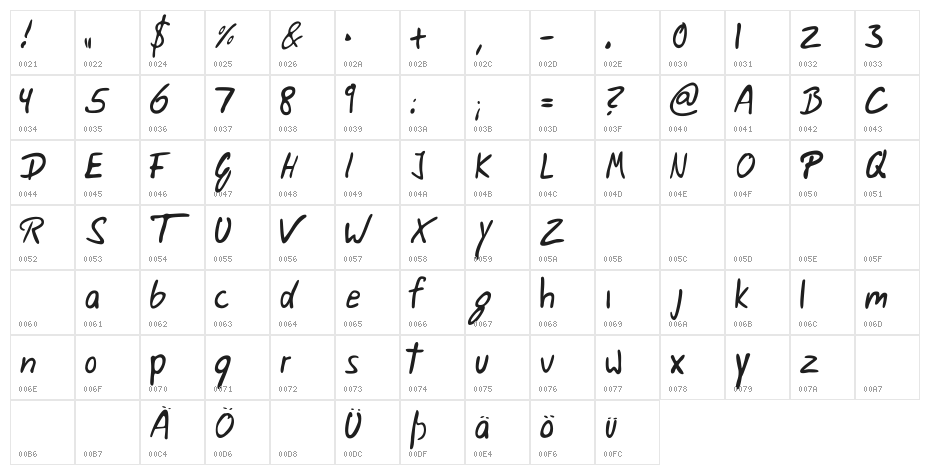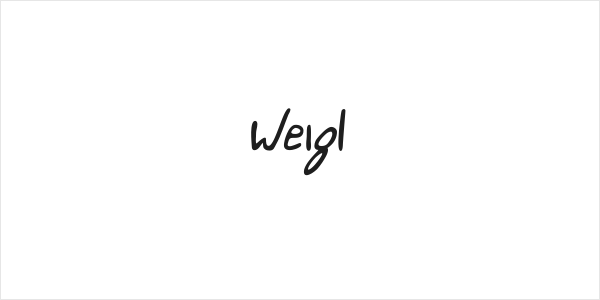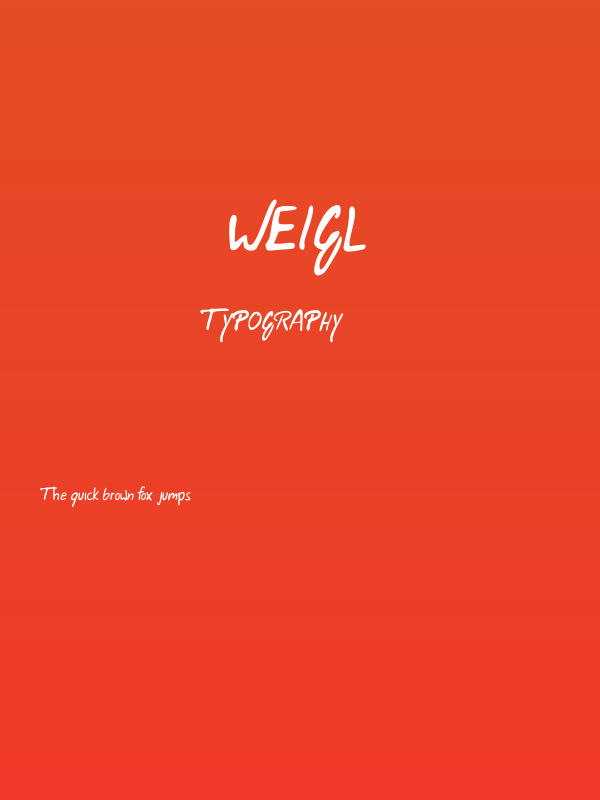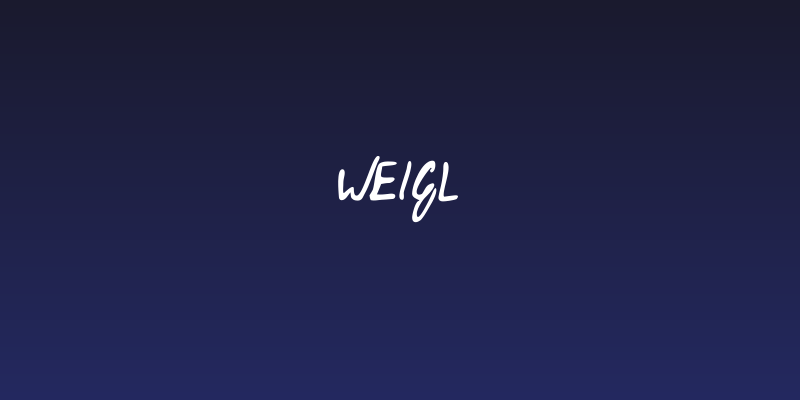
Weigl Font
| Gesamtstil | Casual and playful |
| Anwendungsfall | Logos, headlines, and creative projects. |
| Vorgeschlagene Projekte | Greeting cards, personal branding, social media graphics, and informal invitations. |